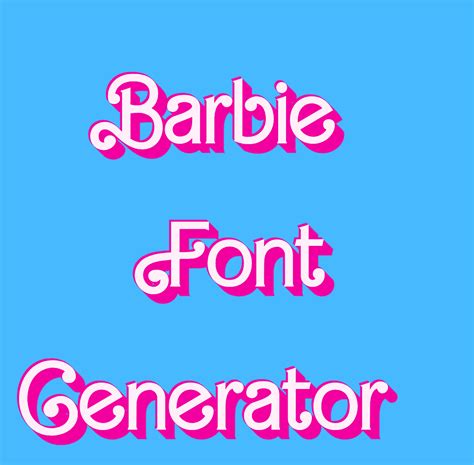
Barbie Cursive Font Generator. Web just type your original text or letters, and you can get trendy text with barbie effect immediately. Web transform your text into a stunning font style with our innovative text effect generator.
Web create text graphics with barbie font, a cursive font inspired by the logo of the barbie doll. Every font is free to download! Web just type your original text or letters, and you can get trendy text with barbie effect immediately. Embrace the nostalgia of the 1970s and. Web looking for cursive barbie fonts? Copy the barbie font and. Web unlock your inner creativity with the free barbie fonts! Make your projects stand out with these unique and expressive fonts. Web transform your text into a stunning font style with our innovative text effect generator. Choose from different styles, slants,.
Web transform your text into a stunning font style with our innovative text effect generator. Embrace the nostalgia of the 1970s and. Web create text graphics with barbie font, a cursive font inspired by the logo of the barbie doll. Choose from different styles, slants,. Click to find the best 3 free fonts in the cursive barbie style. Web just type your original text or letters, and you can get trendy text with barbie effect immediately. Web transform your text into a stunning font style with our innovative text effect generator. Copy the barbie font and. Make your projects stand out with these unique and expressive fonts. Every font is free to download! Web looking for cursive barbie fonts?